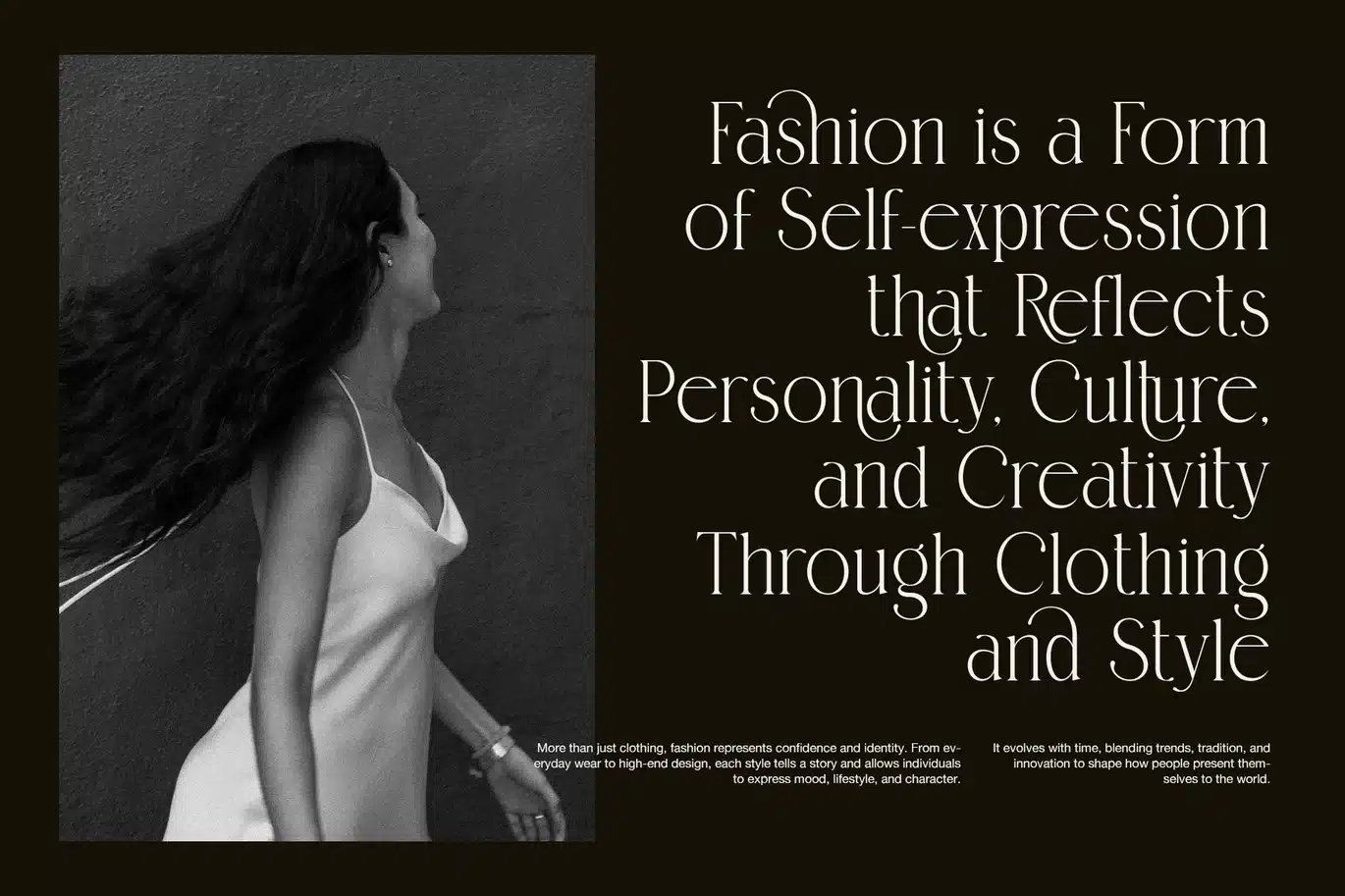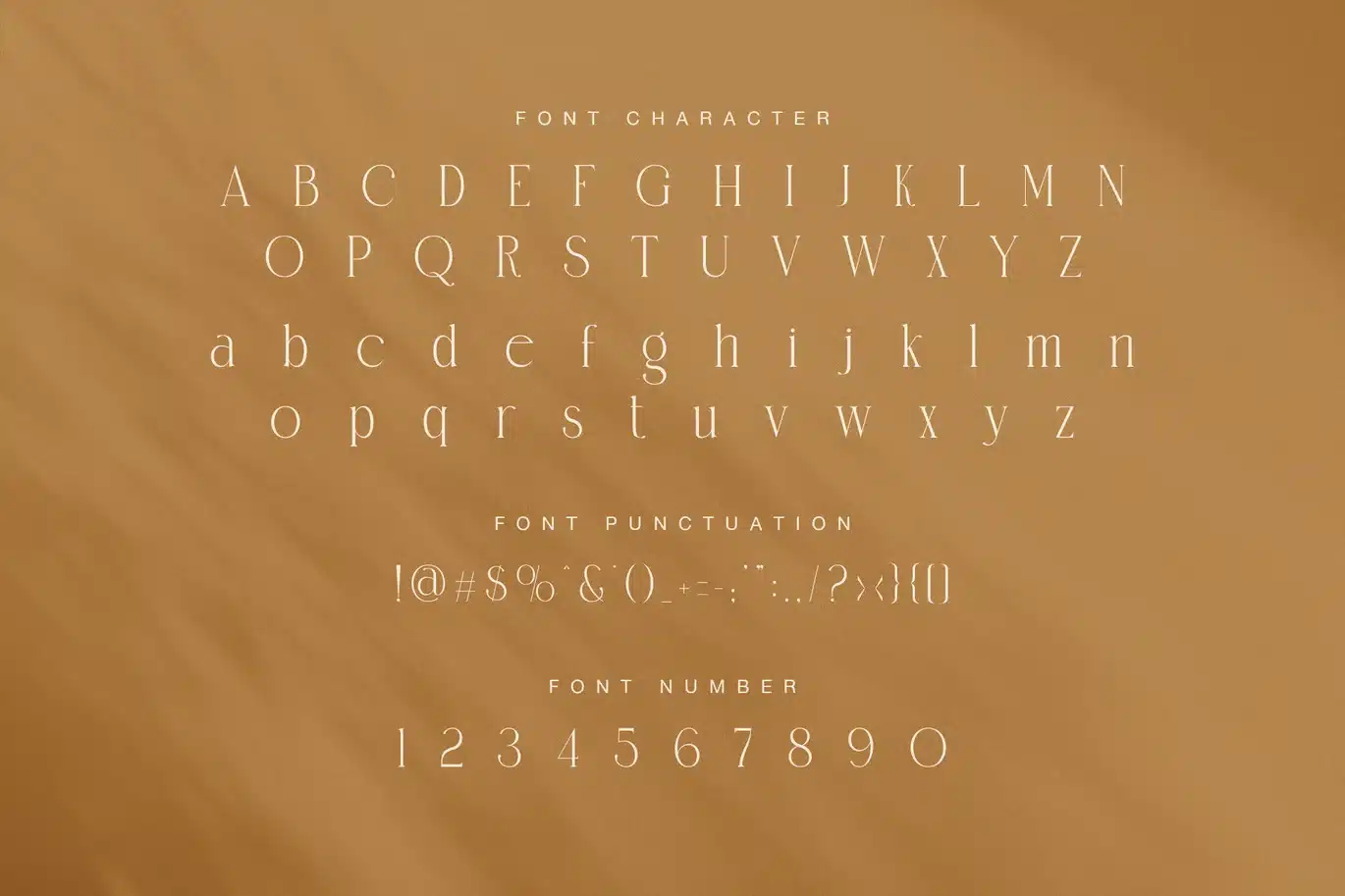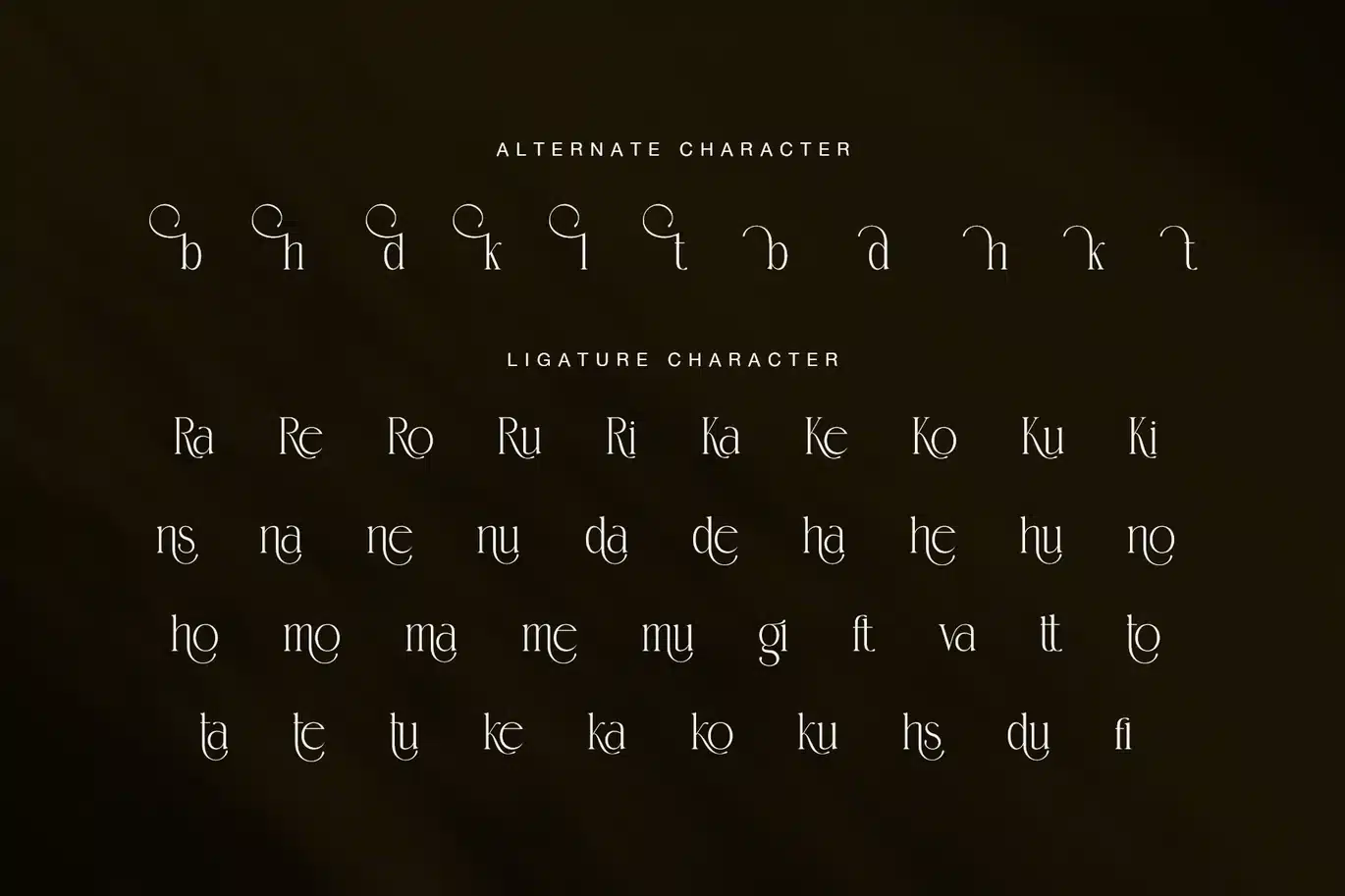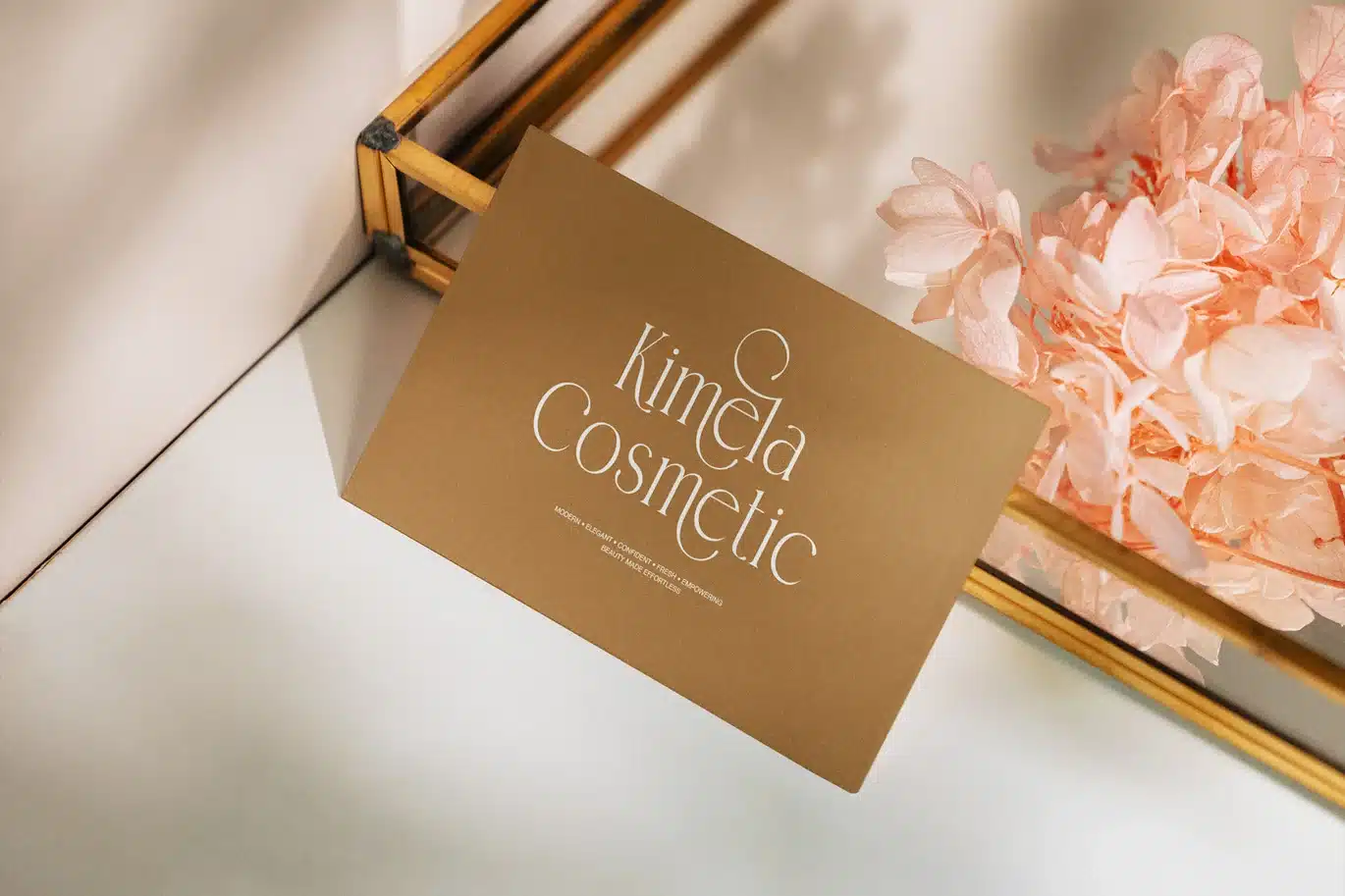
Radens Elegant Serif Font
Radens Elegant Serif Font is a graceful display typeface with a soft luxury feel. It blends classic serif structure with modern curves, so it looks refined, stylish, and memorable. The overall shape feels thin and delicate. Still, the details give it a strong and clear identity.
This font stands out through its balance of elegance and creativity. It keeps the beauty of a classic serif, yet it adds flowing alternates, rounded terminals, and artistic swashes. Because of that, Radens feels premium without looking too formal. It looks polished, warm, and highly decorative.
The letterforms are tall, slim, and smooth. In addition, the contrast between thick and thin strokes adds a stylish rhythm. Several characters feature dramatic curves that make headlines feel more expressive. Therefore, this font works very well for designs that need a refined and feminine voice.
Radens also includes alternate characters and elegant ligatures. These details help words look more fluid and custom-made. As a result, your logo, headline, or brand name can feel more unique. The decorative forms add charm, while the clean base keeps the font usable.
This serif font is a strong choice for beauty branding, fashion editorials, cosmetic packaging, and floral designs. It also fits wedding invitations, boutique logos, product labels, and social media graphics. Moreover, it works well for business cards, branding presentations, and luxury marketing materials.
Main Features
- Elegant serif style with a modern look
- Decorative alternates for artistic layouts
- Beautiful ligatures for smoother text flow
- Thin, classy, and feminine letterforms
- Ideal for branding, logos, and headlines
- Suitable for beauty, fashion, and wedding themes
Why Designers Love It
Radens helps designs feel more exclusive and visually rich. Even so, it does not feel too crowded or heavy. The elegant curves bring personality, while the structure stays neat and readable. For that reason, it is easy to use in many creative projects.
If you need a serif font for luxury branding or stylish packaging, Radens is a beautiful option. It gives your work a chic, graceful, and timeless look. So, whether you design for skincare, flowers, fashion, or lifestyle brands, this font can leave a lasting impression.